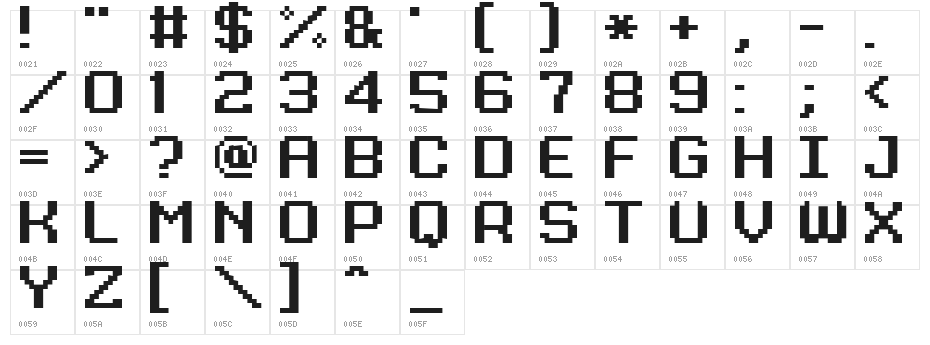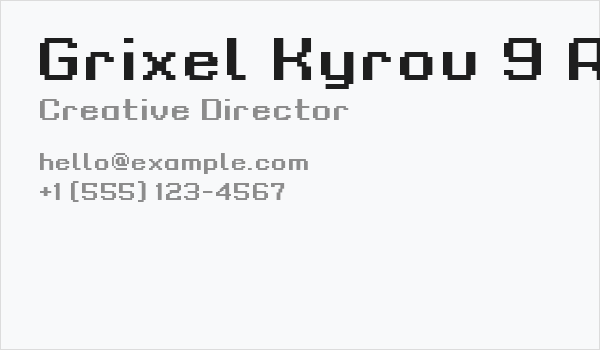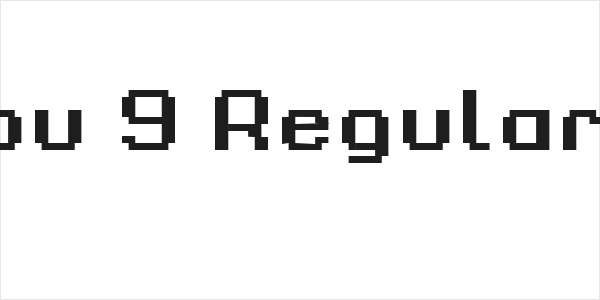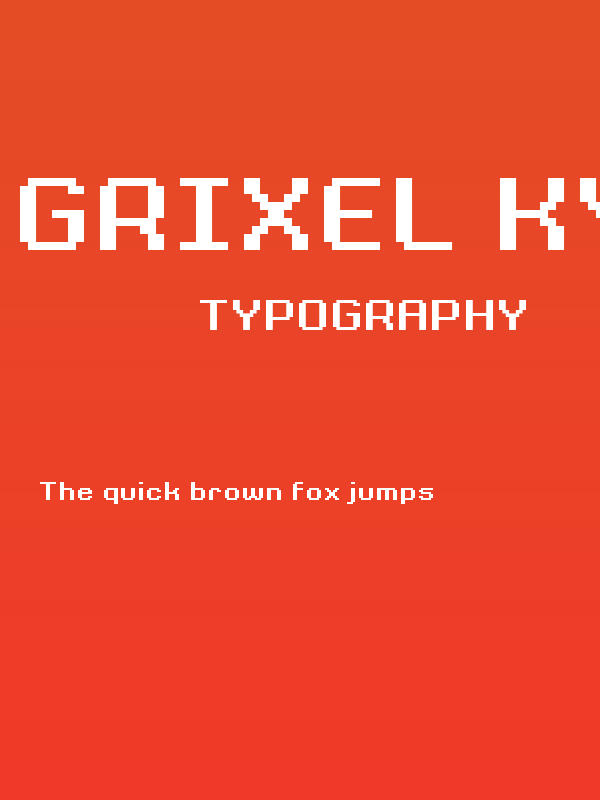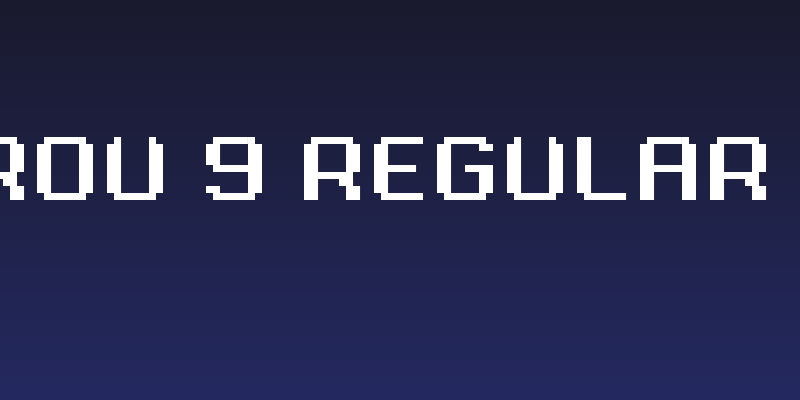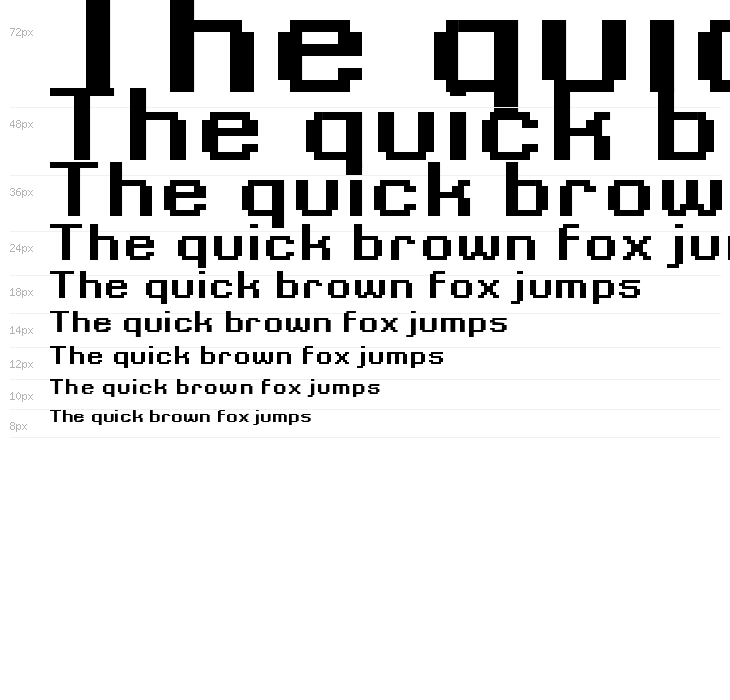
Grixel Kyrou 9 Regular Bold Xtnd Font
Grixel Kyrou 9 Regular Bold Xtnd Description
This font features a pixelated, blocky design reminiscent of early digital and video game aesthetics. Each character is composed of sharp, square edges, giving it a distinctly retro and technological feel. The uppercase and lowercase letters maintain a consistent height, contributing to a uniform appearance. Numbers and special characters follow the same pixelated style, ensuring cohesion across all elements. This font's bold weight enhances its visibility, making it suitable for digital displays and retro-themed projects.
| Overall Style | Retro, Digital |
| Use Case | Headlines, Logos, Digital displays |
| Proposed Projects | Ideal for video game design, retro-themed graphics, digital art, and tech-inspired branding. |